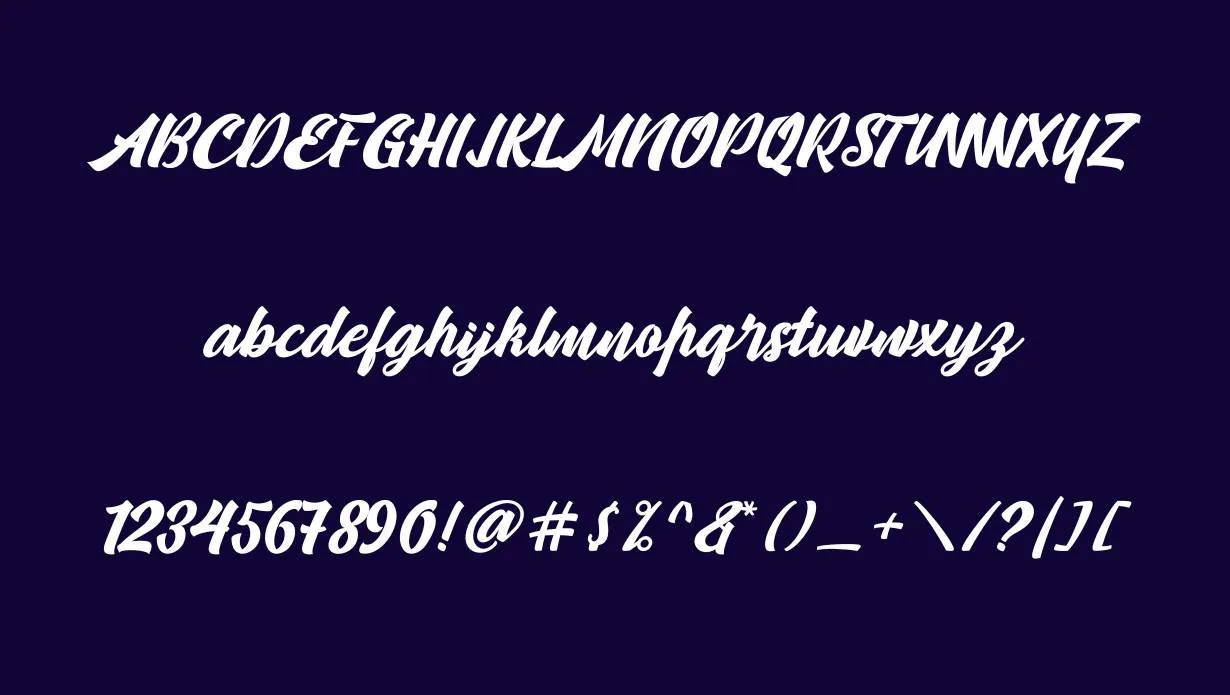
The Camping Font is a breath of fresh air in typography form, perfect for projects related to the great outdoors or camping adventures. Its rustic characters offer a connection to nature, making it ideal for signage or posters.
| Name | Camping Font |
| Designer | Rattana Rattanawan |